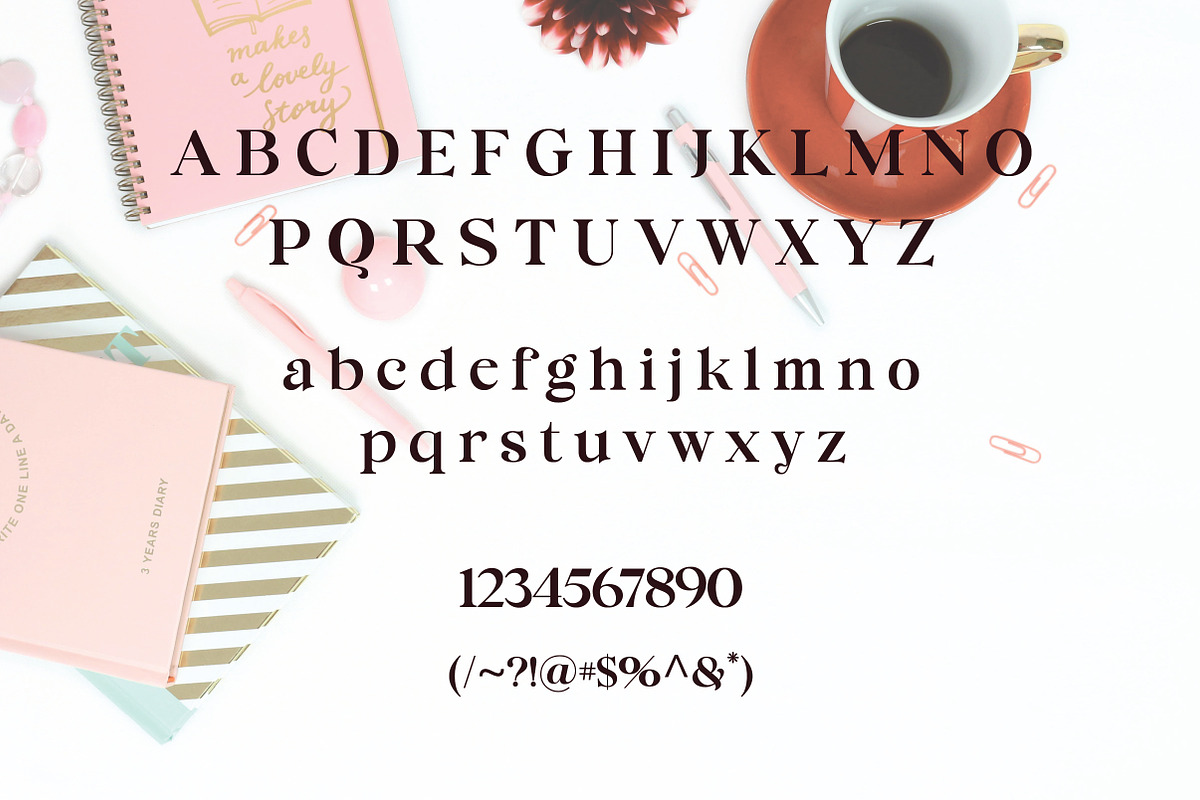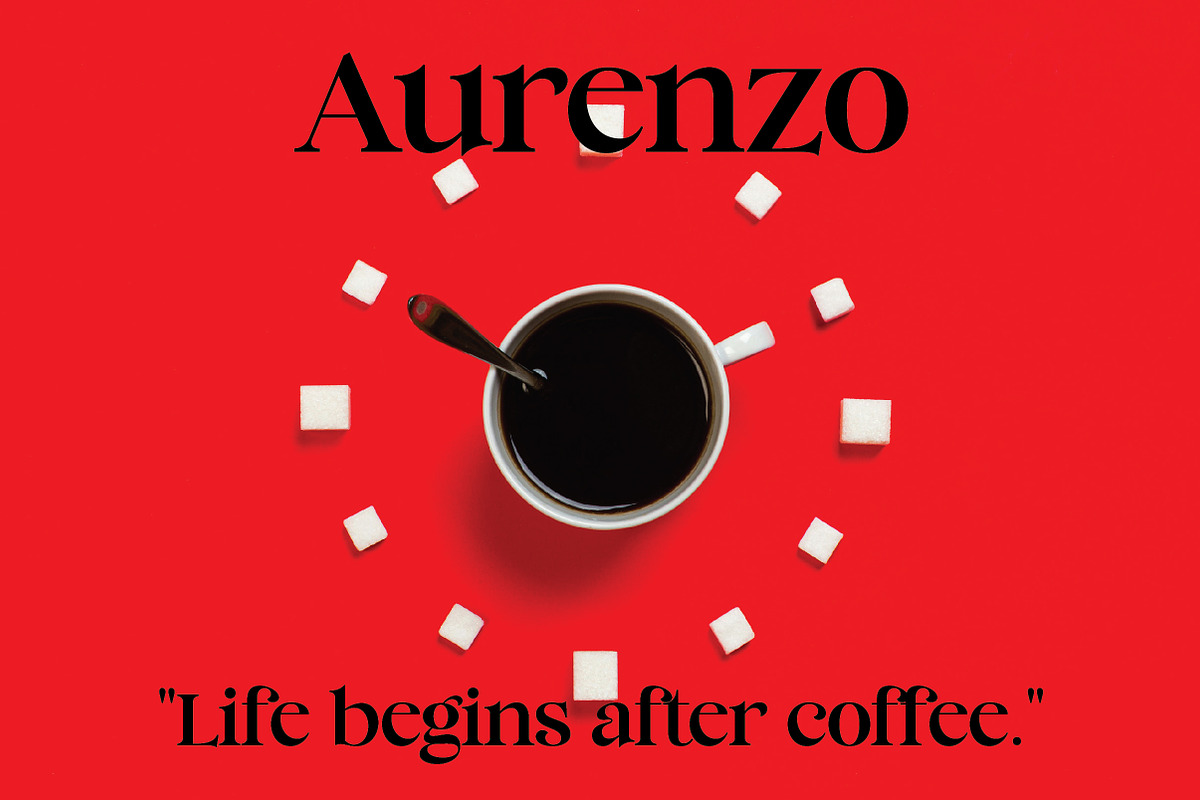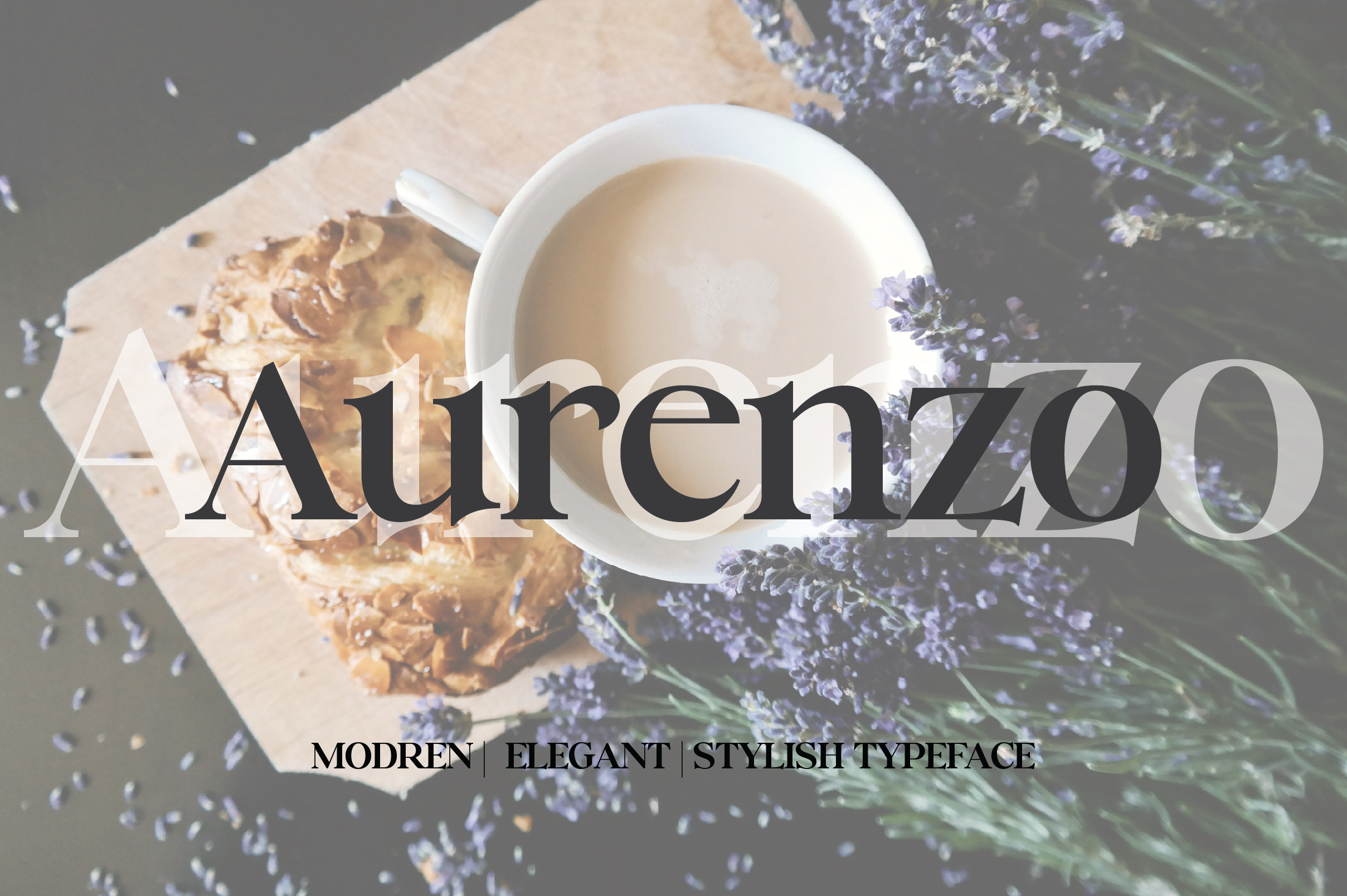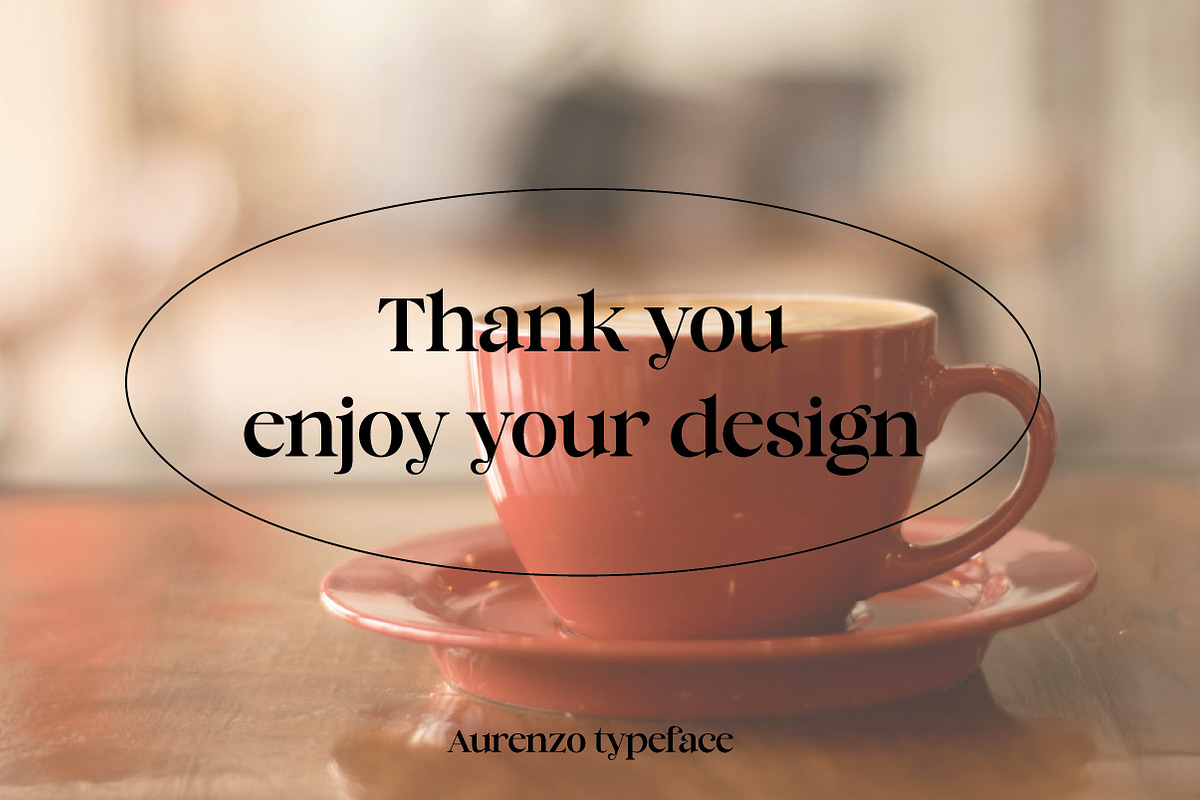
Aurenzo | Classic Serif Typeface
Aurenzo is a refined serif typeface that blends traditional elegance with a modern touch. The Regular style features clean lines, smooth curves, and balanced proportions—making it ideal for branding, editorial design, logos, packaging, and sophisticated print materials.
With its timeless character and versatile readability, Aurenzo adds a polished, professional look to both headlines and body text. It’s perfect for fashion, luxury branding, magazines, and creative projects that demand a classic yet contemporary serif style.
Uppercase & lowercase letters
Multilingual language support
Aurenzo is a must-have serif font for designers who value elegance, clarity, and style in one timeless typeface.